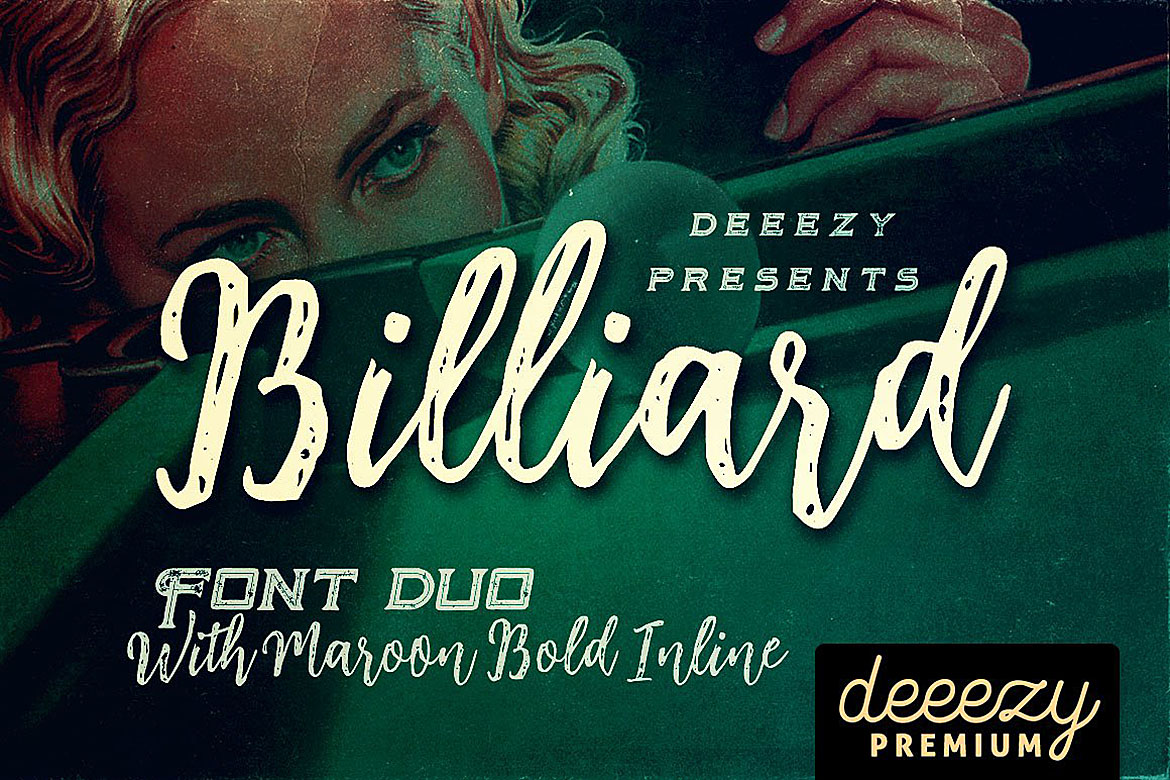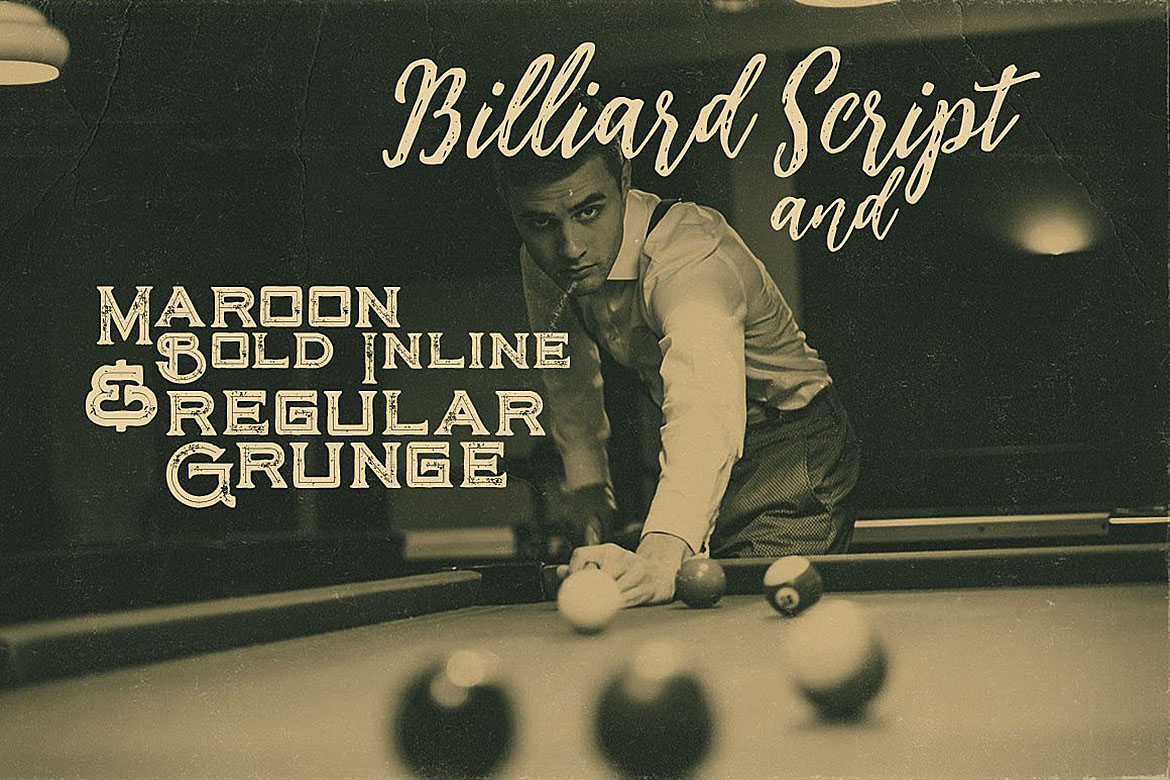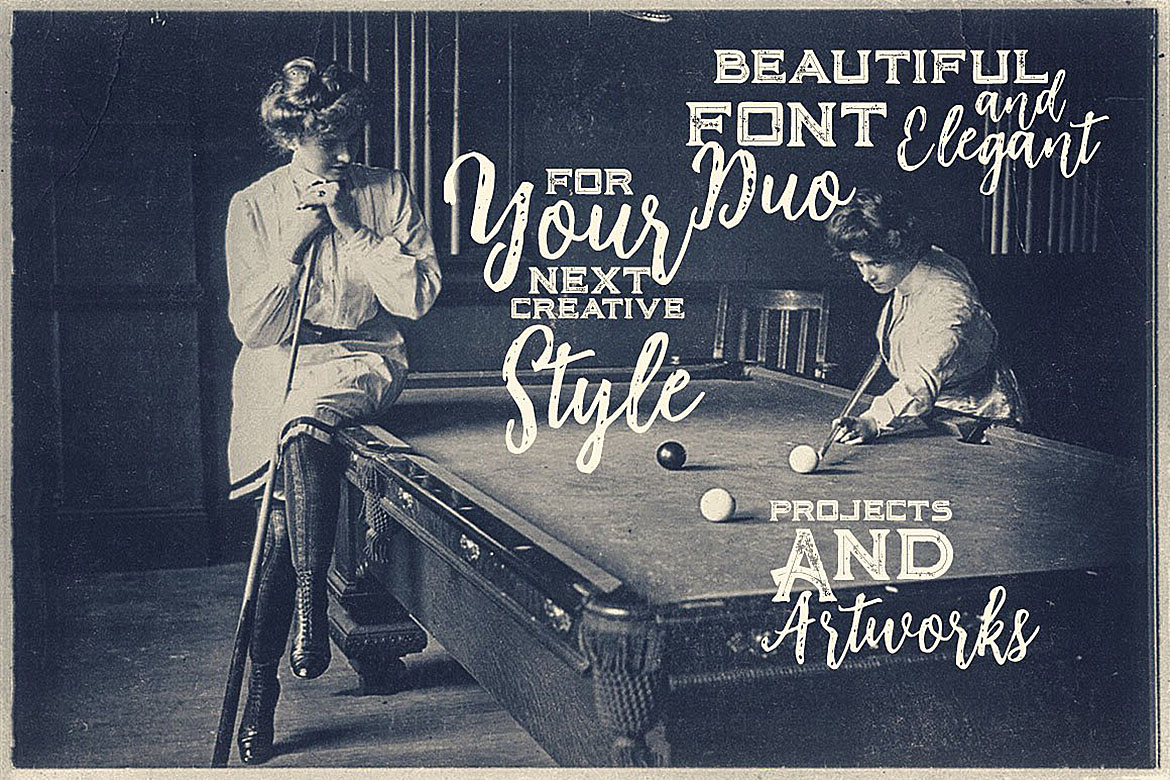
Billiard Font Duo Font
Cool retro or vintage style font duo for your new projects.
First font is handdrawn & unique style brush script font with multi language support and lot of stylistic alternates + swash font.
Second font is bold inline display font with regular & grunge version (without multi language support).